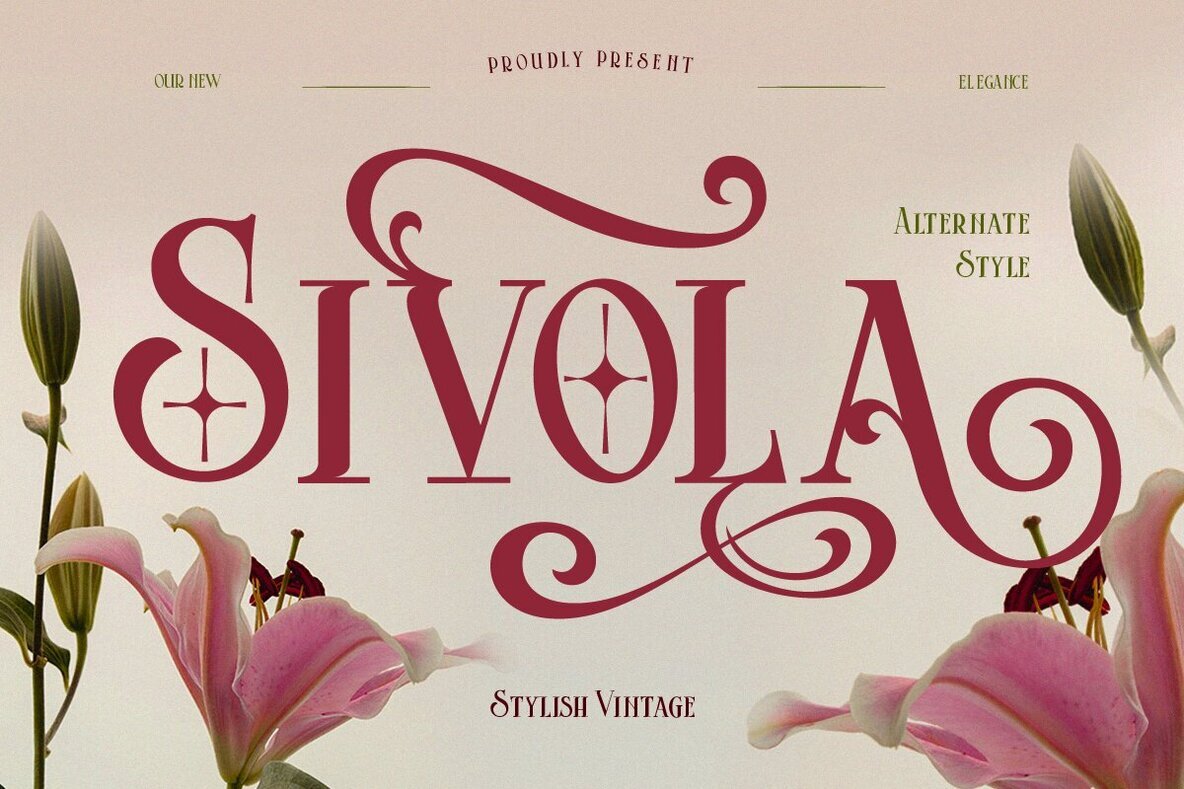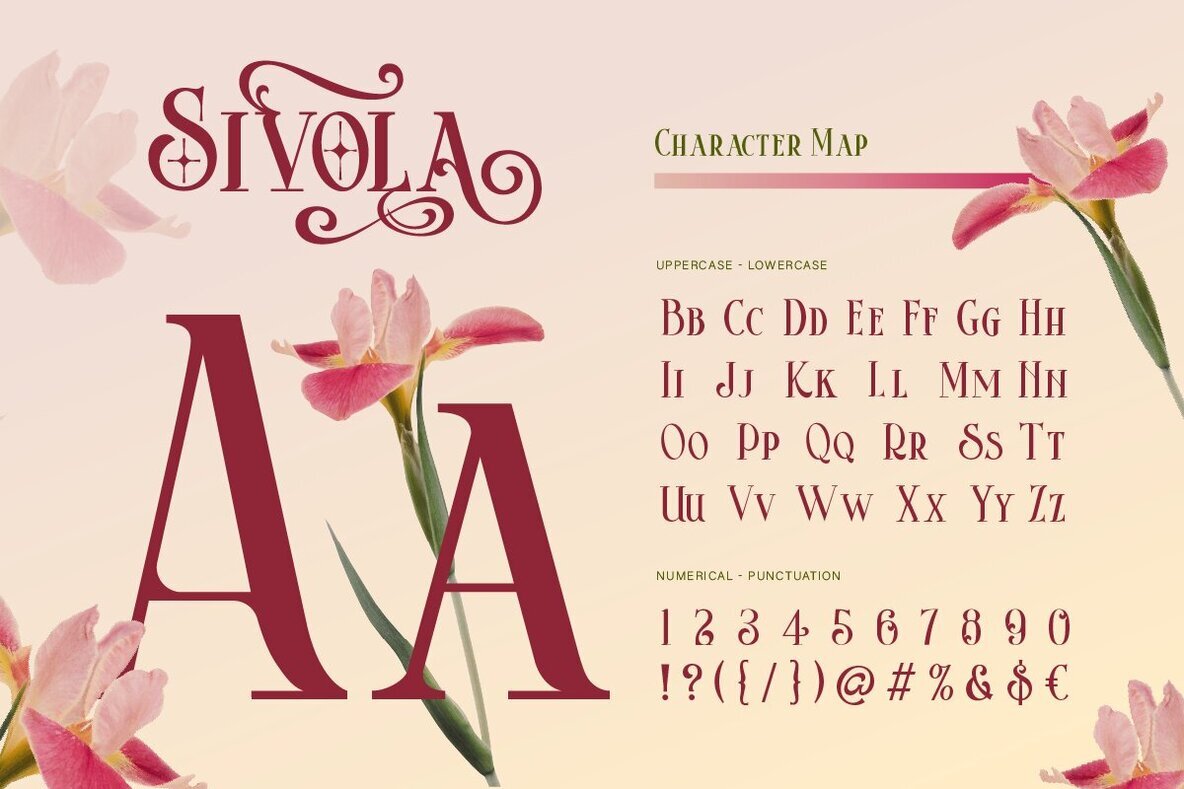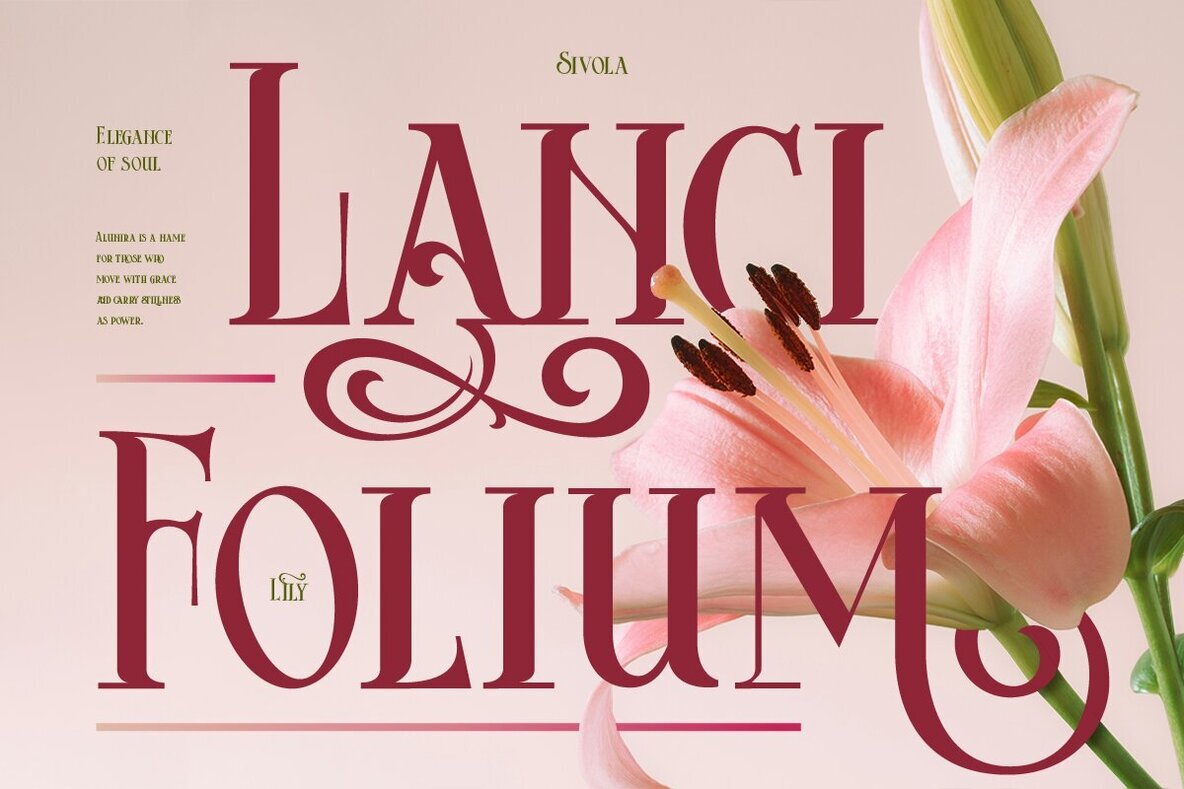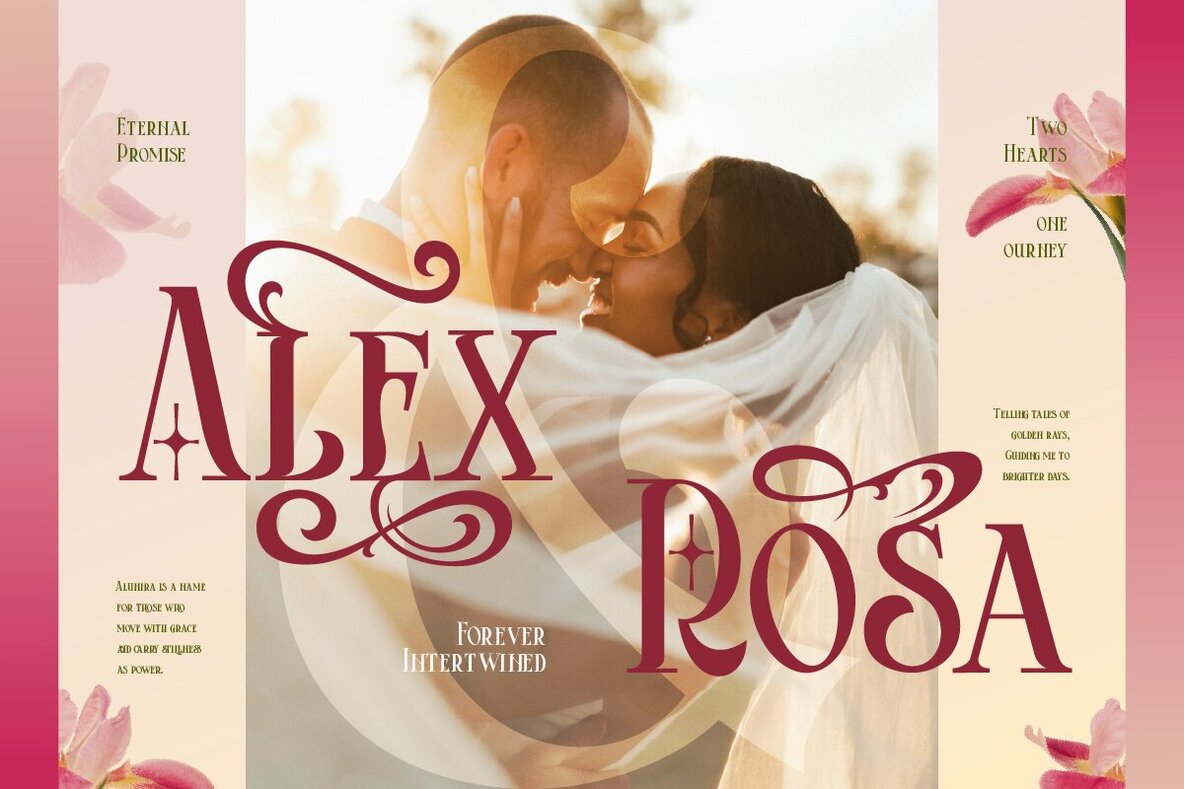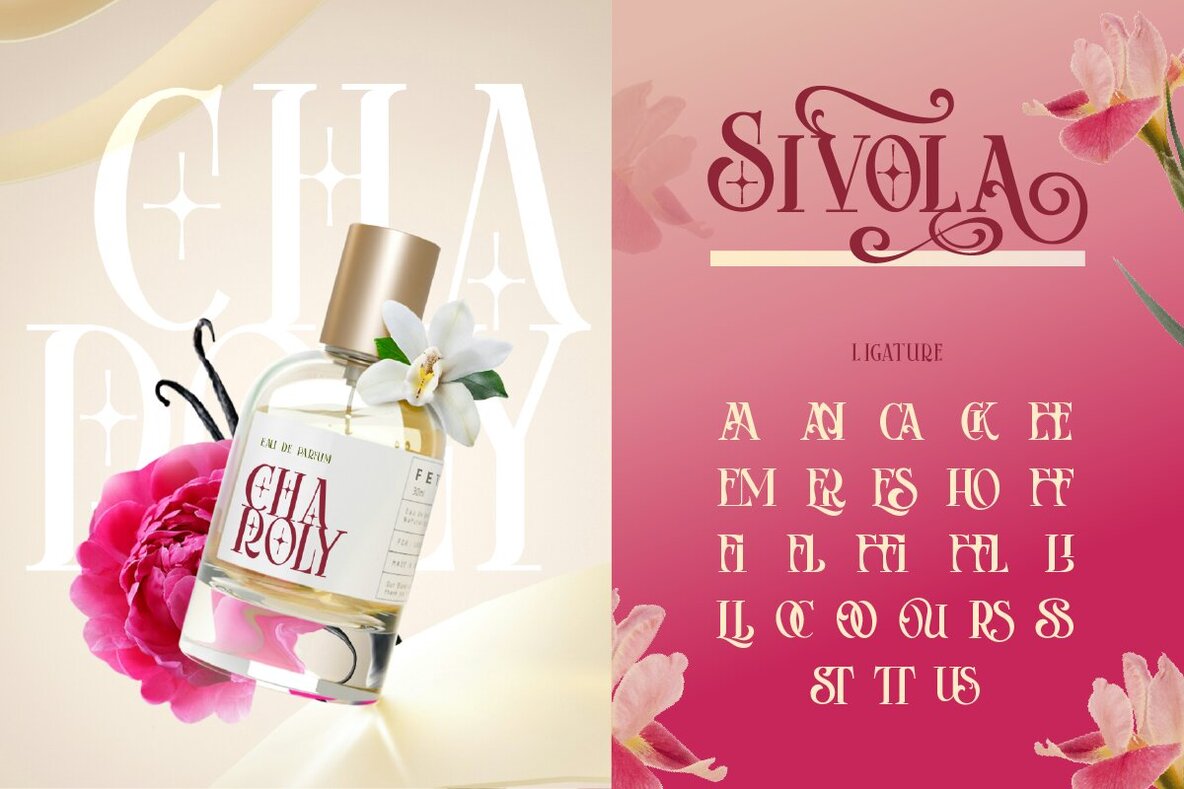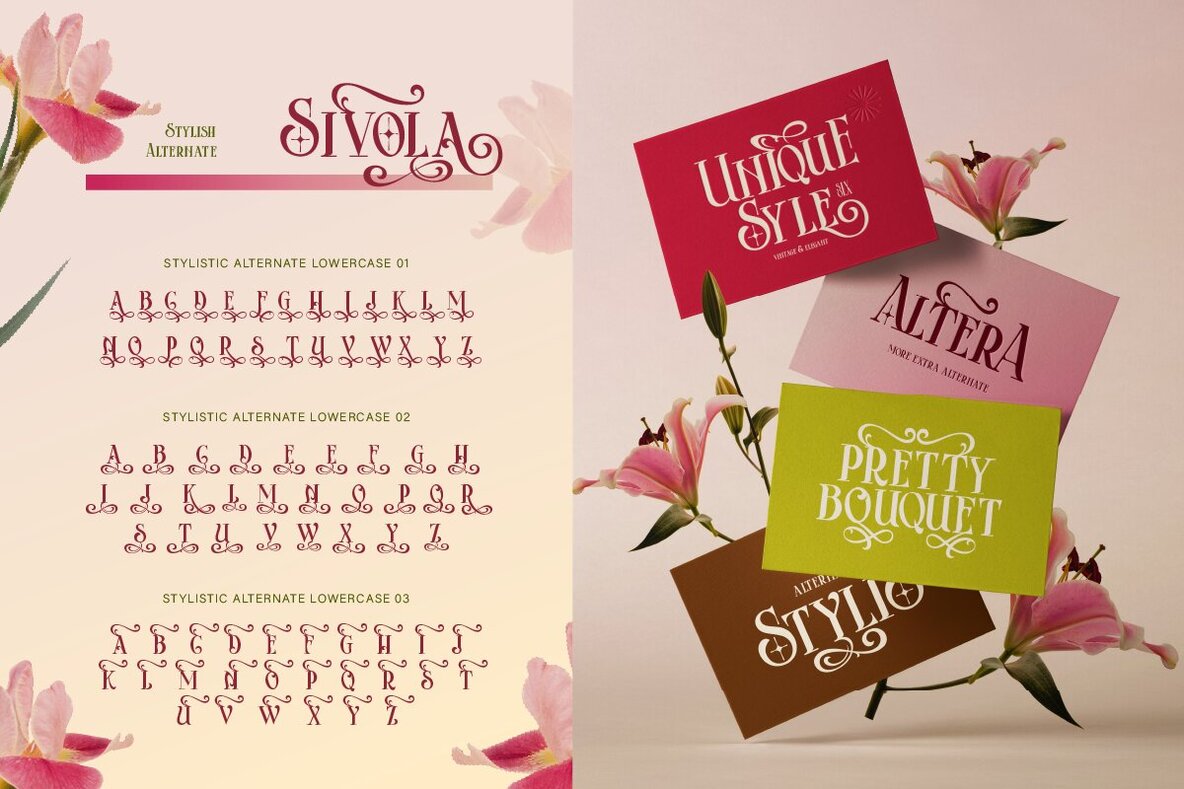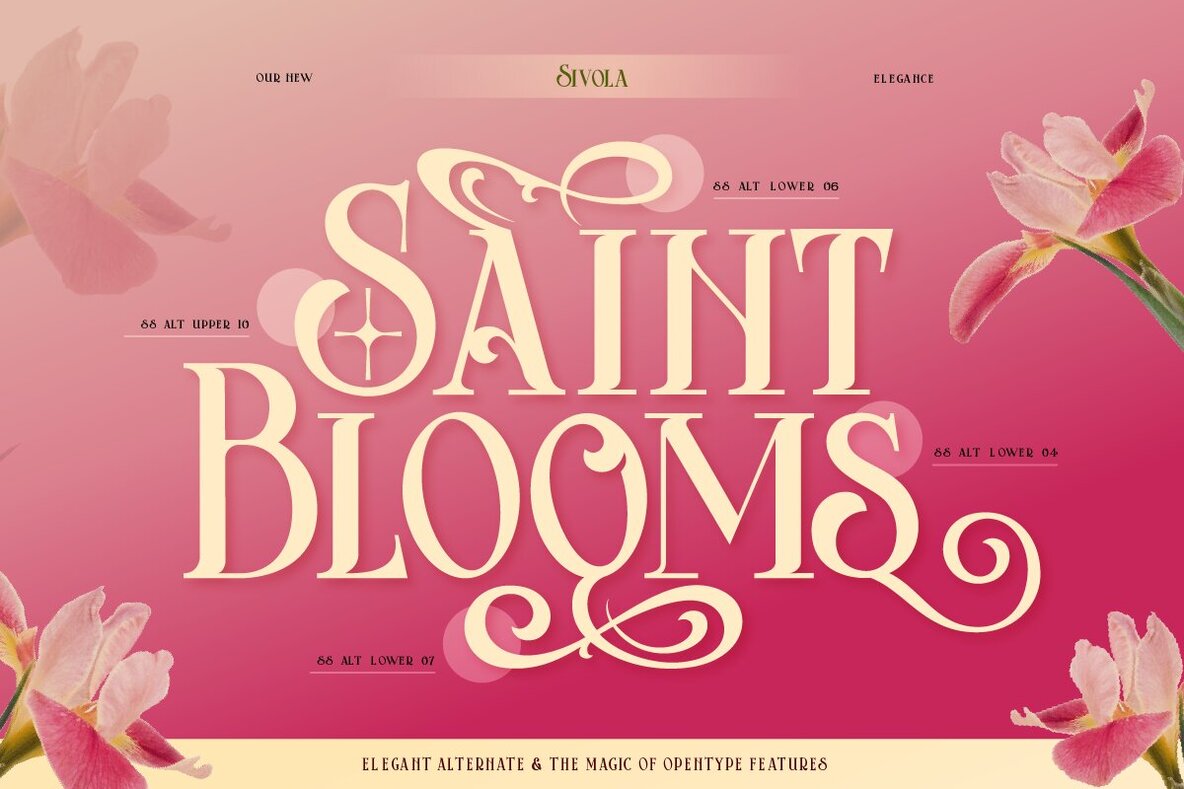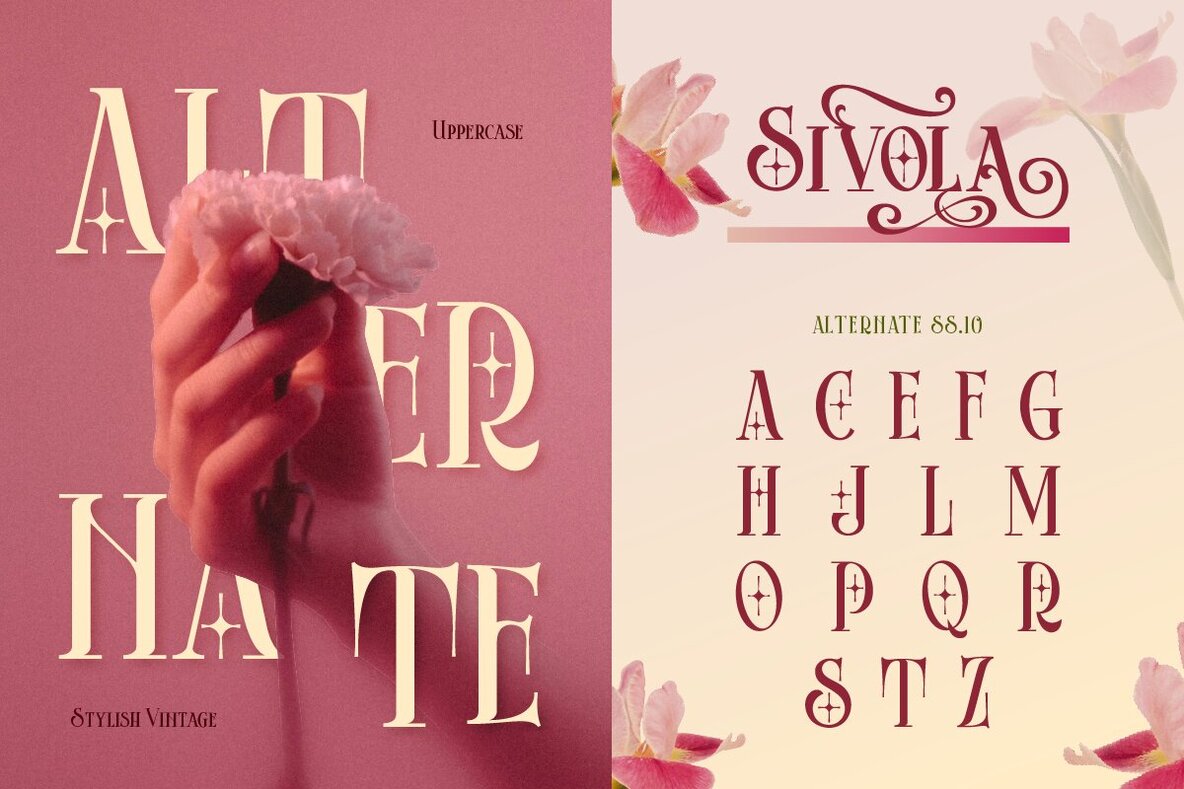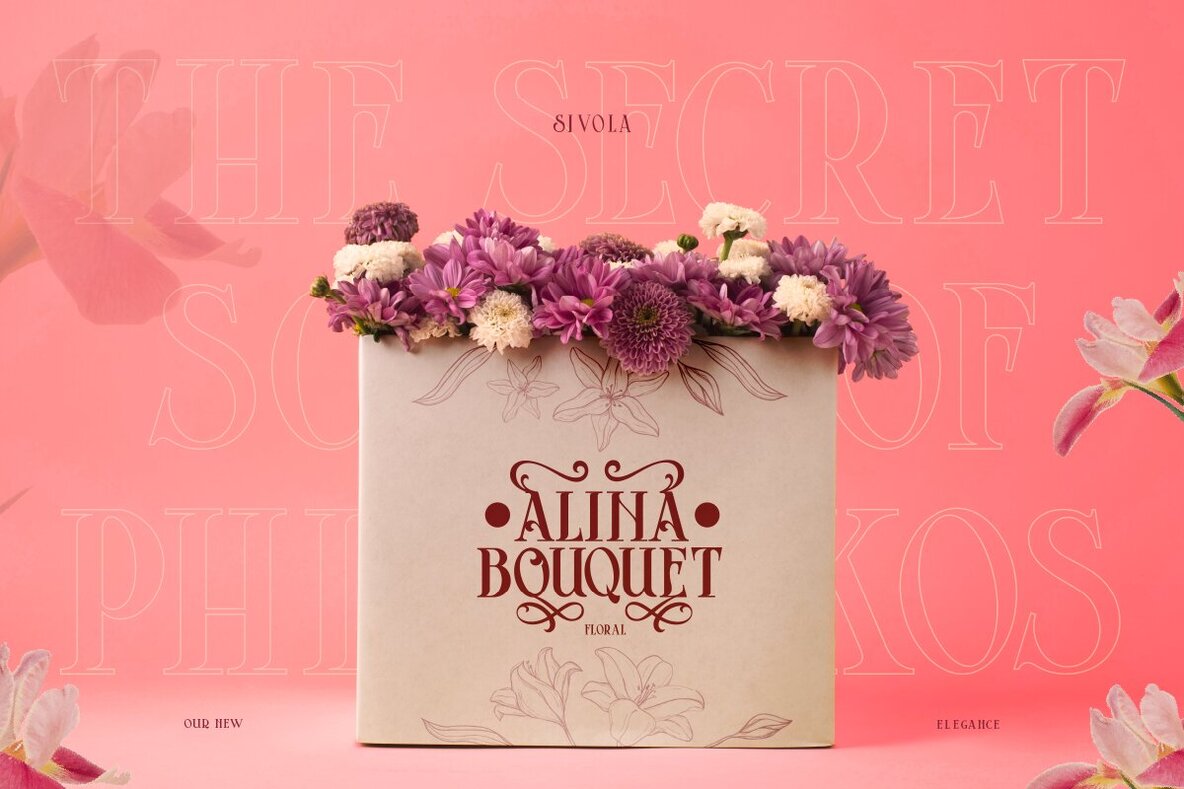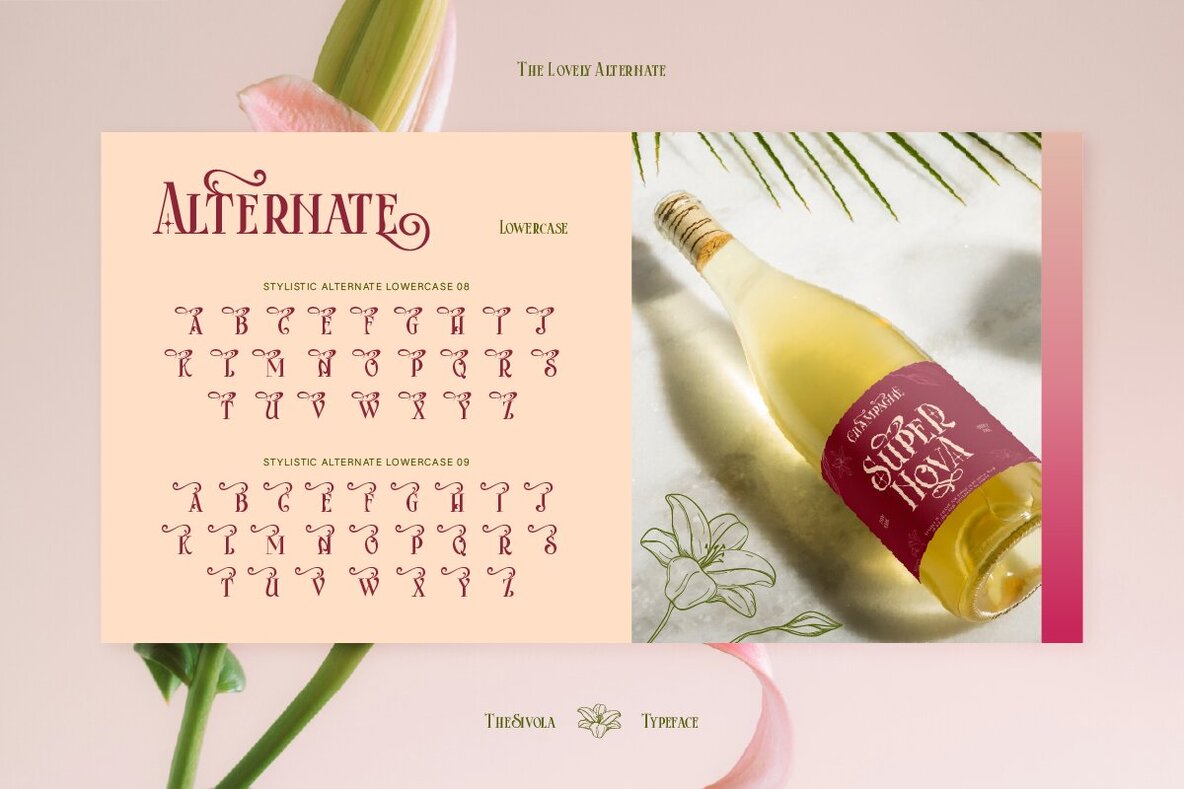
Sivola Font
Sivola
Sivola is an exquisite serif font that captures attention with its graceful curves and timeless vintage appeal. Renowned for its versatility, this font comes with a host of alternates and decorative ligatures, allowing for limitless creative expression. Whether enhancing a logo, designing a captivating poster, or crafting a refined editorial layout, Sivola adds an undeniable touch of luxury and charm to your work. Elevate your next project with the unmatched elegance of Sivola, a standout serif font that transforms any design into a masterpiece.Discover Sivola